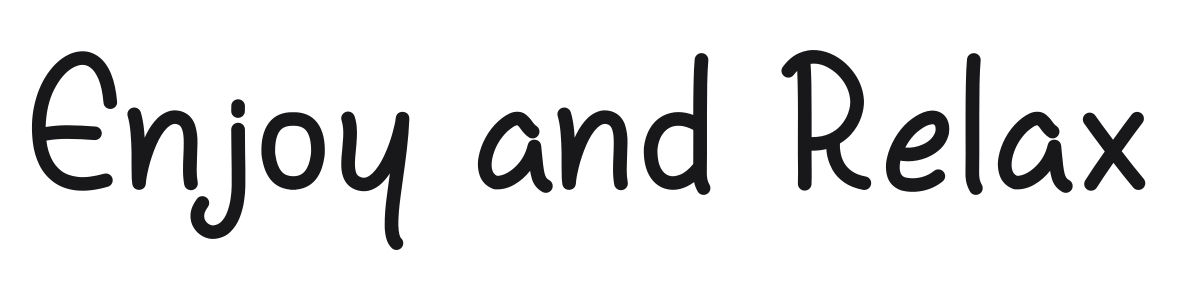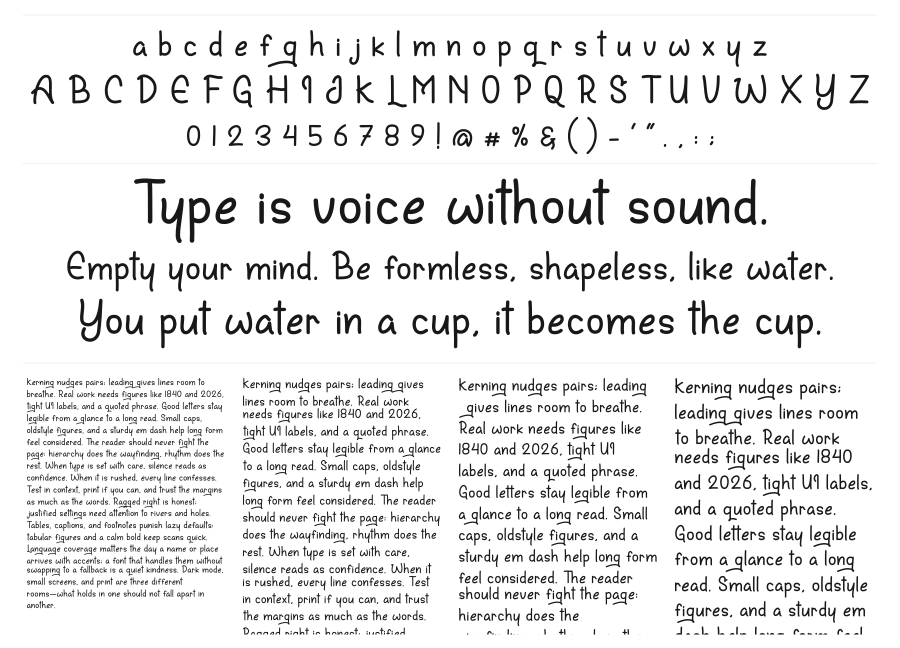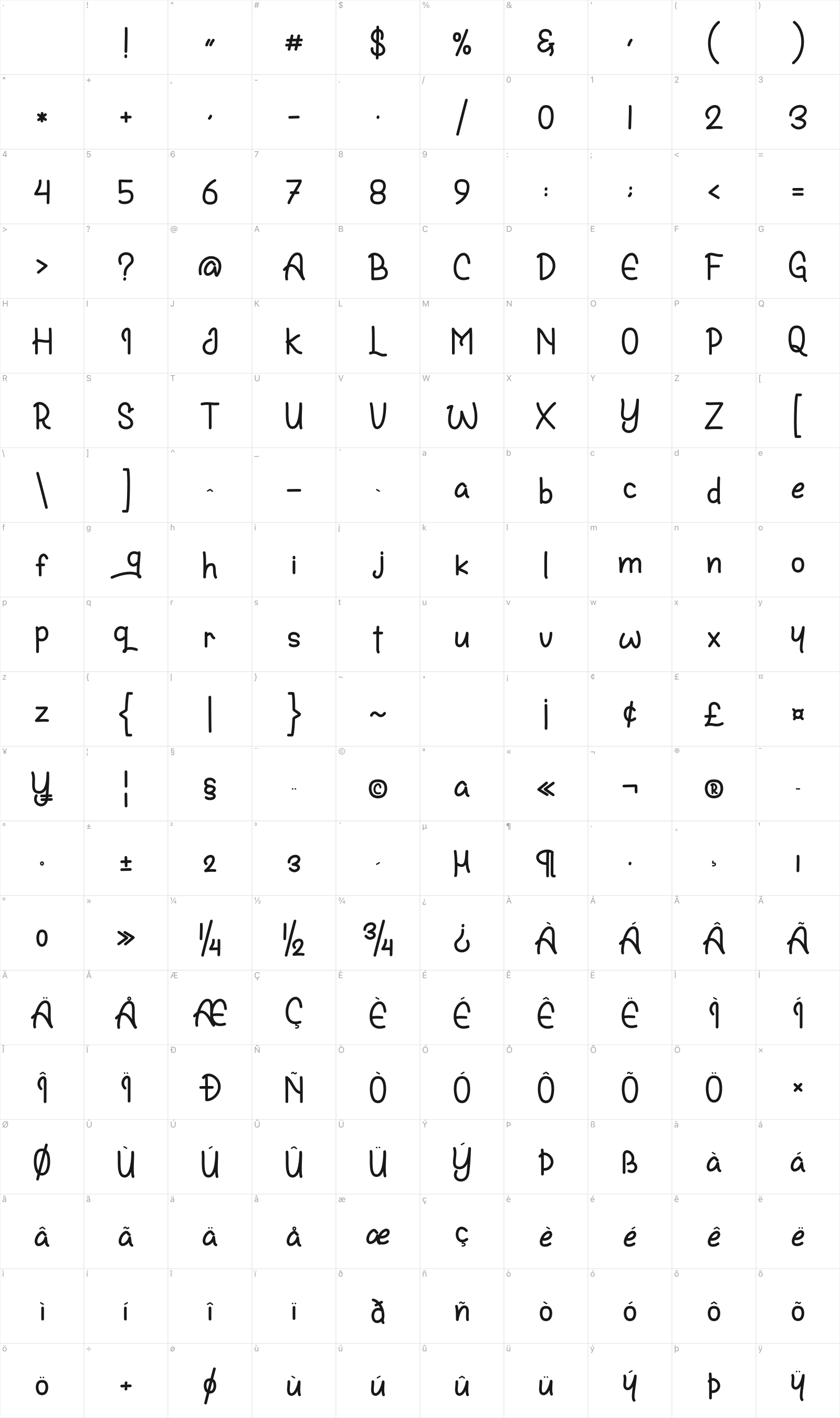
Enjoy and Relax
by Hendra Pratama
Enjoy and Relax is a casual upright handwritten font with rounded strokes and a warm, unpretentious feel. The slight irregularities in letter shape and baseline give it an authentic hand-drawn quality without veering into messy territory. It works well for branding, packaging, and any project that needs a human, approachable touch.